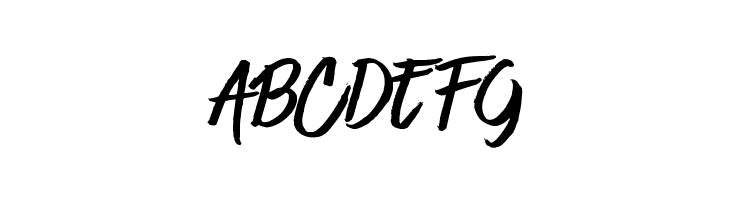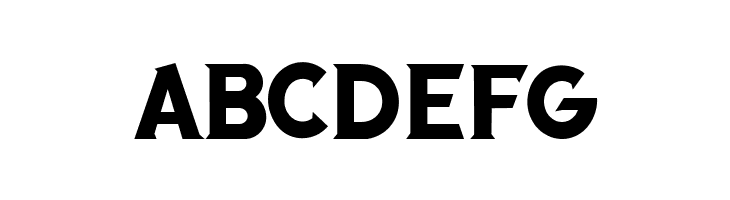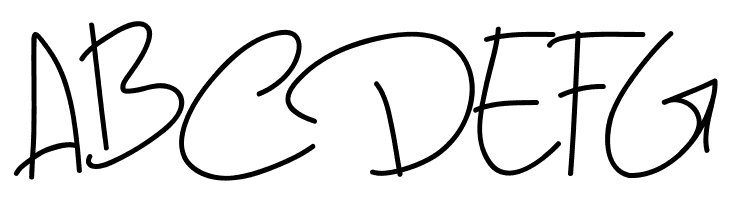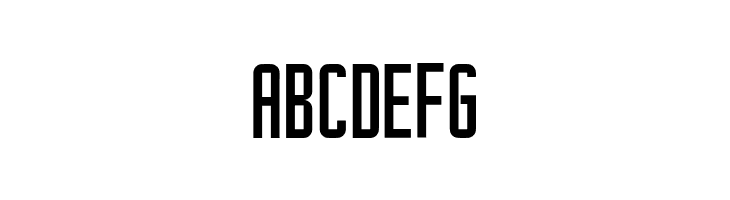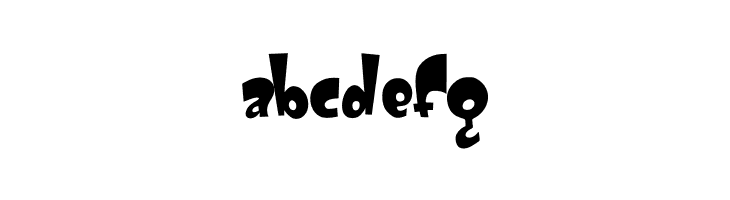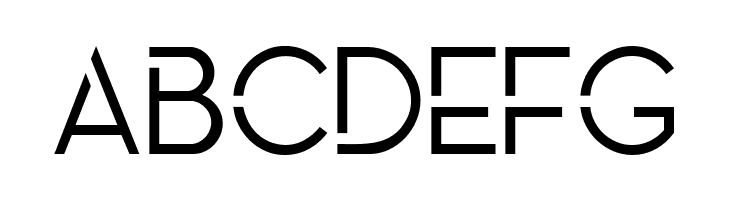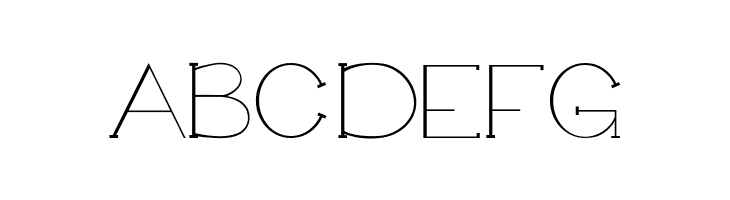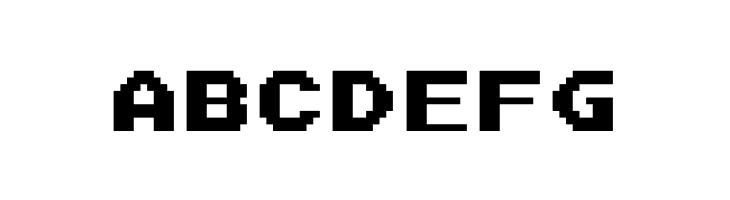
Cataclysmo Font
A bold, modern font with a geometric and condensed style.
GATOT KACA Font
Font by Docallisme HAS
A playful, bold font with exaggerated curves and whimsical shapes.
Geovana Font
Font by madeDeduk
A playful, handwritten font with fluid, dynamic letterforms and a whimsical style.
Jaime Blues Font
Font by PremiereGraphics
A bold, handwritten font with a dynamic and expressive style.
KindaPix Font
A pixelated, retro-style font with a blocky, digital appearance.
NOW YOU SEE ME Font
Font by
spideraysfonts
A bold, geometric font with a futuristic and edgy style.
SEA GARDENS Font
A bold, geometric font ideal for impactful designs.
Unbalanced Font
A modern, artistic font with thin lines and playful circular elements.